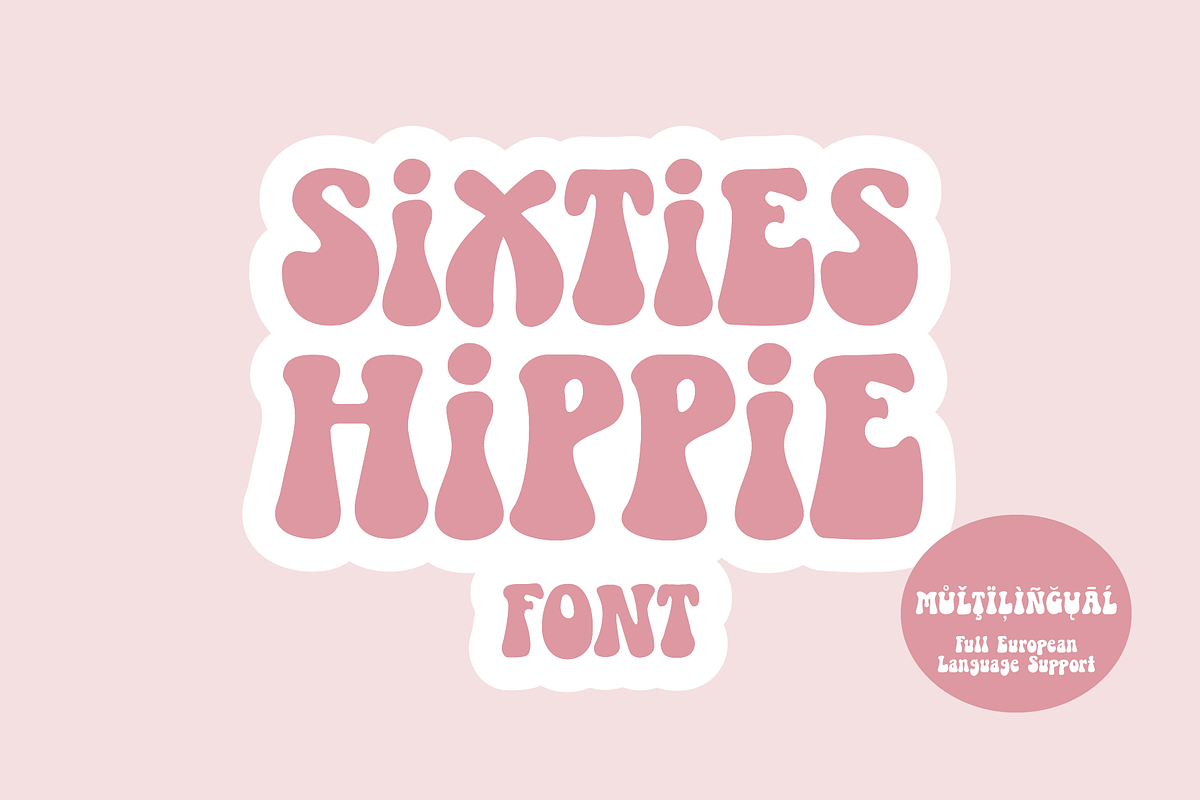
The Best Sixties Hippie Font Free Download is a vibrant and playful typeface that brings the fun and free-spirited vibe of the 1960s to your designs. Featuring groovy, rounded letterforms with psychedelic influences, this font is perfect for creating retro logos, event posters, branding, social media graphics, and more. Whether you're designing for a festival, vintage brand, or any project that requires a touch of nostalgic fun, this font adds a bold and creative twist to your work.
The Best Sixties Hippie Font Free Download is ideal for designers looking to infuse their work with a fun, retro, and whimsical touch. Perfect for groovy branding, event promotions, or creative campaigns, this font will make your designs stand out. Download it today and bring the bold and colorful energy of the sixties to your creative projects!